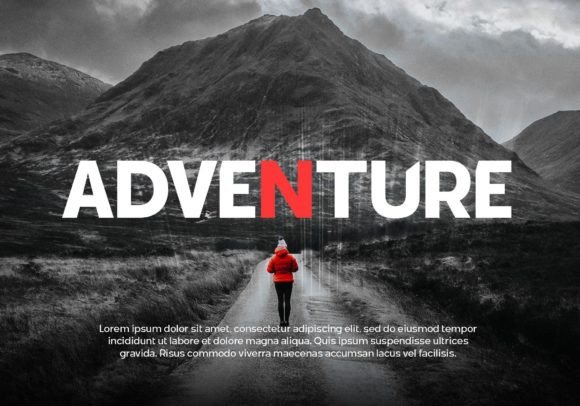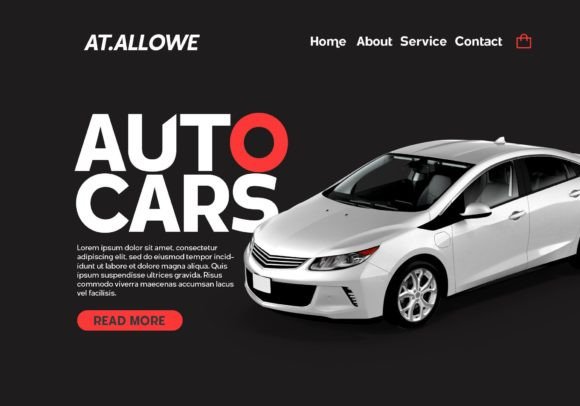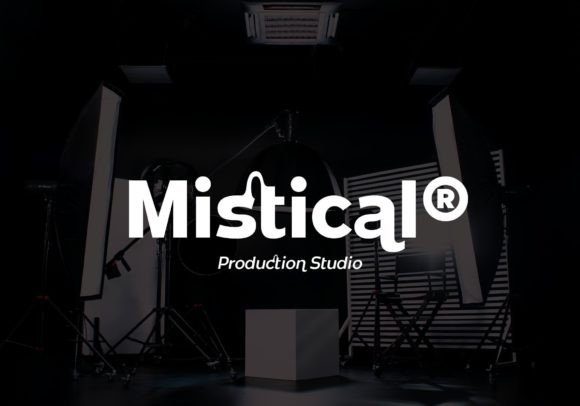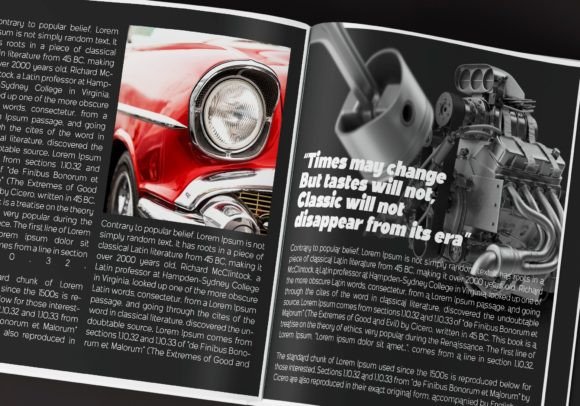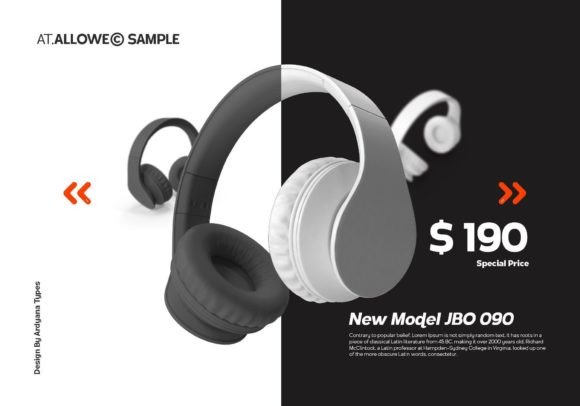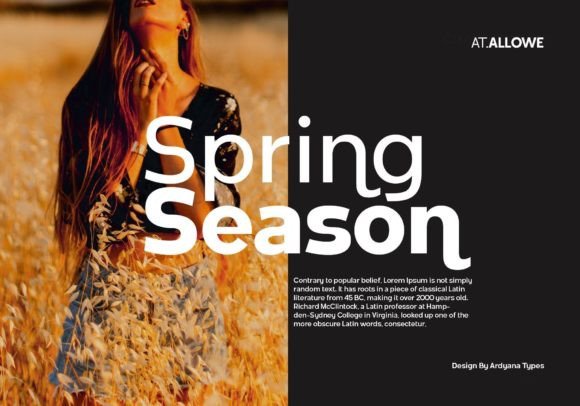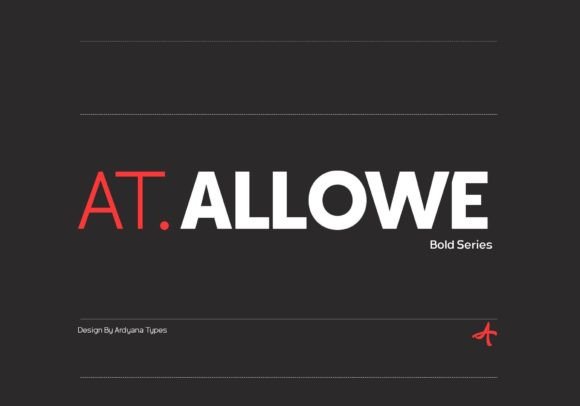
Discover the Modern Charm of At. Allowe Font
In the world of typography, a font can make or break a design. With the right font, your creative project can stand out, convey the right message, and leave a lasting impression. If you’re on the hunt for a modern, fresh, and versatile sans serif font, look no further than At. Allowe. This stunning font is designed to elevate your designs and bring a touch of sophistication to your work.
The Versatility of At. Allowe Font
At. Allowe is a modern sans serif font that boasts a high level of versatility. Its clean lines, elegant curves, and balanced proportions make it an excellent choice for a wide range of projects. Whether you’re working on a branding campaign, a website design, a print project, or a digital application, At. Allowe is the perfect companion. Its neutral yet stylish appearance allows it to seamlessly integrate with various design styles, ensuring your project looks polished and professional.
What Makes At. Allowe Stand Out
• Modern Aesthetic: At. Allowe features a sleek and contemporary design that will instantly update your project’s visual appeal. Its modern aesthetic is perfect for designers and crafters looking to create fresh and engaging designs.
• High Legibility: The font’s clear and readable structure ensures that your text is easily comprehensible, making it ideal for body text, headings, and titles.
• Flexible Usage: At. Allowe’s versatility allows you to use it across various mediums, from digital platforms to print materials, without compromising on style or legibility.
• Unique Character: The font’s distinctive character set includes a range of special characters, numerals, and punctuation marks, giving you the creative freedom to experiment with different typography styles.
2. Experiment with Styles: At. Allowe comes in various weights and styles. Experiment with different combinations to find the perfect fit for your project.
3. Pair with Other Fonts: Don’t be afraid to pair At. Allowe with other fonts to create a unique typography style. Its neutral design makes it an excellent pairing font.
Whether you’re a seasoned designer or a crafty DIY enthusiast, here are some valuable tips for making the most of At. Allowe:
• Play with Font Sizes: Use At. Allowe in various font sizes to create visual hierarchy and add depth to your designs.
• Emphasize with Color: Experiment with different colors to highlight specific elements, add contrast, or create a cohesive brand identity.
• Mix and Match: Combine At. Allowe with other design elements, such as images, textures, or patterns, to create visually appealing compositions.
At. Allowe font is a game-changer for designers and crafters looking to elevate their projects with a modern, fresh, and versatile sans serif font. Its clean design, high legibility, and unique character make it an excellent choice for a wide range of applications. With At. Allowe, you can confidently add a touch of sophistication to your creative ideas and watch them stand out. So why wait? Download At. Allowe today and discover a world of limitless design possibilities!